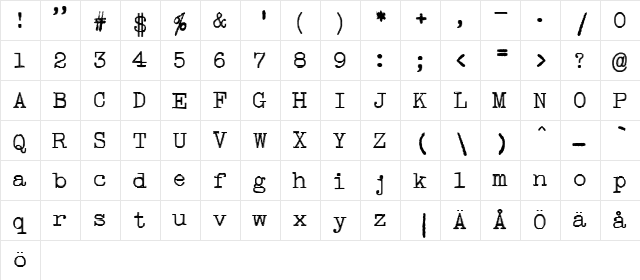
Design Context for Type right! Typeface
Type right! is a composed and adaptable typeface that performs quietly and consistently across a wide range of design contexts.